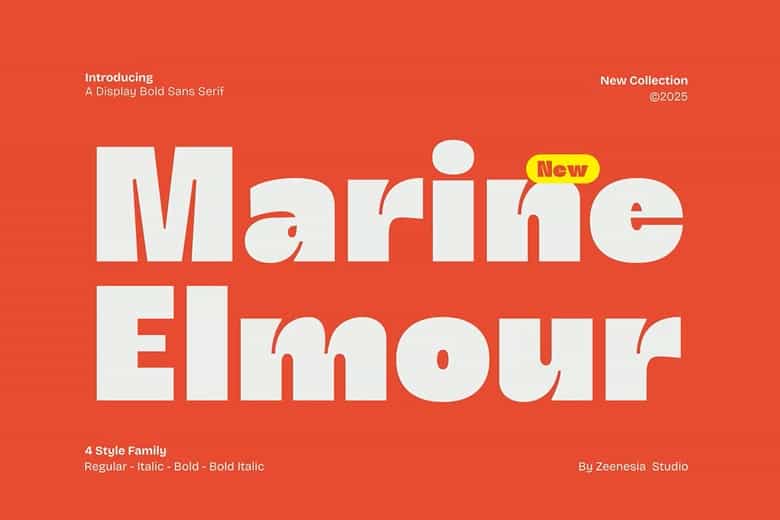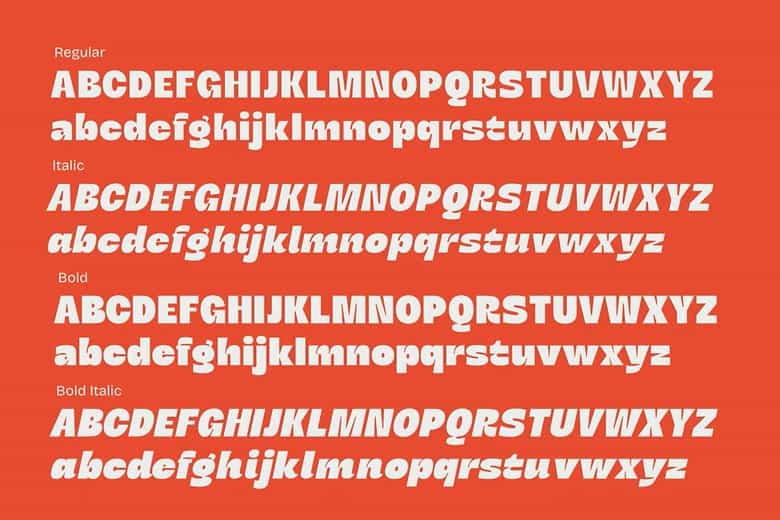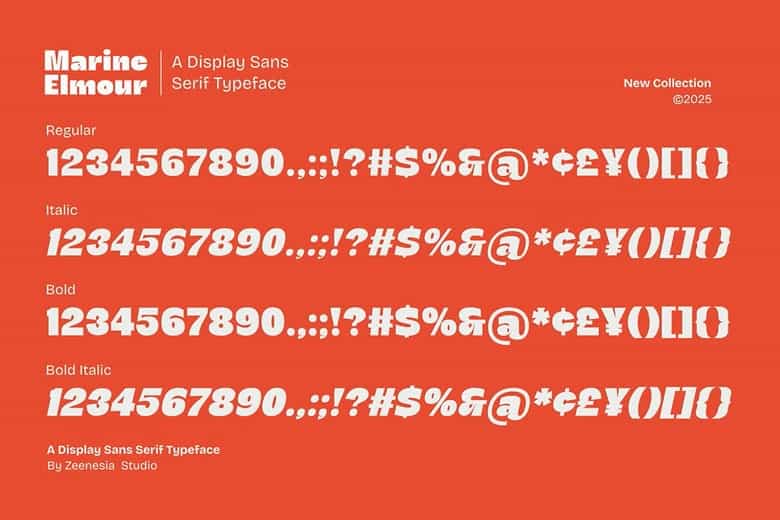
The Marine Elmoure is a well refined elegant bold display sans serif font with a timeless appeal. It is presented in four styles: Regular, Italic, Bold and Bold Italic, allowing it to be used in classic and modern designs. Marine Elmoure is graceful curvature, balanced proportion and distinctive detail.